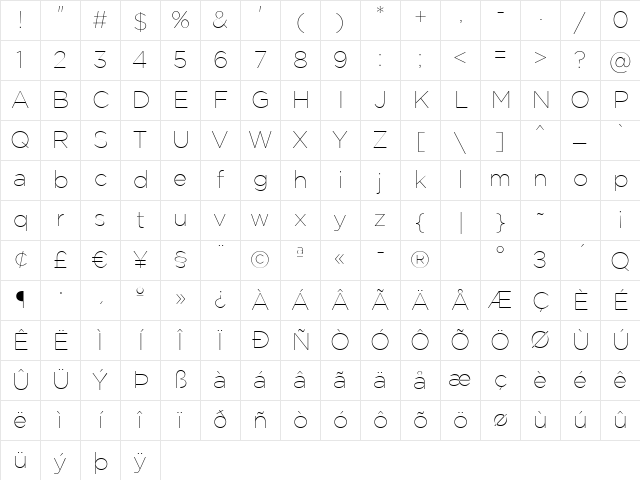
Gotham Thin Regular
Foundry: HTF Gotham Copr. The Hoefler Type Foundry, Inc
Complete Gotham Thin Regular glyph index. Displaying only characters natively supported by Gotham Thin Regular font.
Design Context for Gotham Thin
Gotham Thin is a composed and adaptable typeface that performs quietly and consistently across a wide range of design contexts. Its slender proportions lend an understated elegance to any composition.
Who designed the Gotham Thin Regular font?